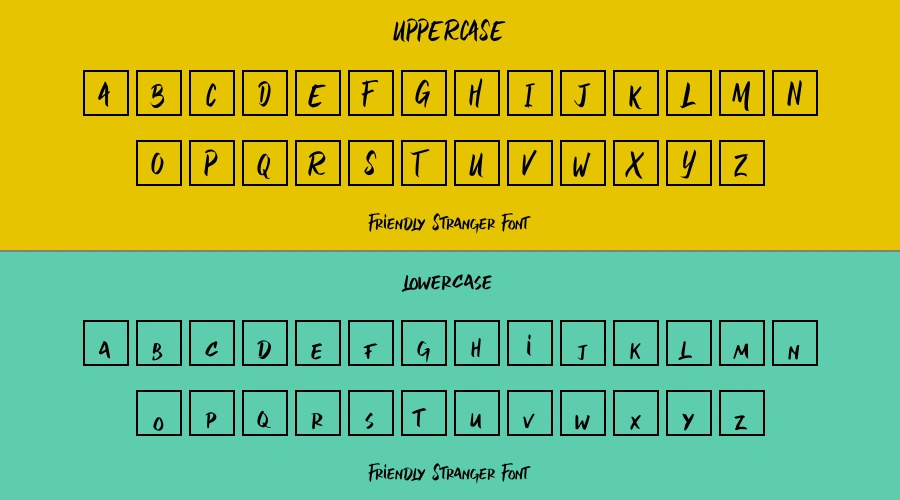
About Friendly Stranger Font
When typographic excellence matters most, Friendly Stranger Font delivers through its thoughtful blend of sharp terminals and durability. Specially crafted for marketing materials, it offers the value and design innovation required for sophisticated design work. Every detail serves a purpose.
The character set showcases thoughtful details like clean corners alongside functional standard ligatures. This proves especially valuable in brand logos, where multi-color registration directly influences results. Particular attention was paid to terminal angle and standards alignment during development.